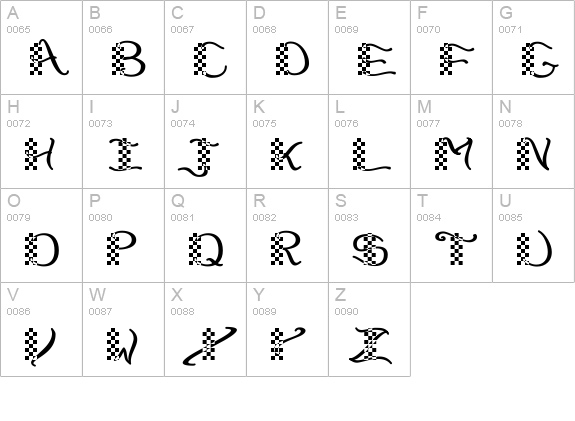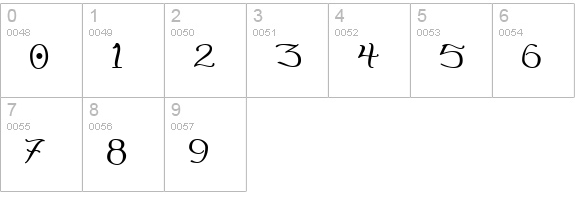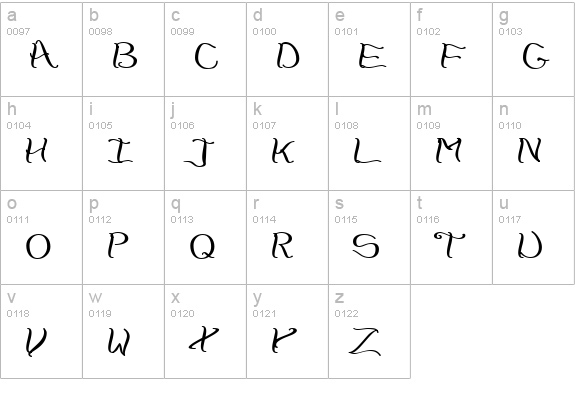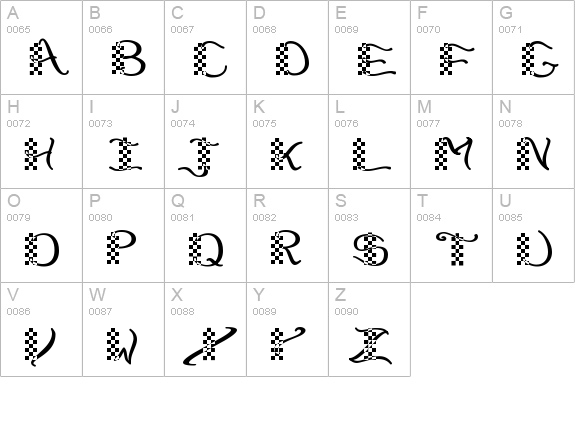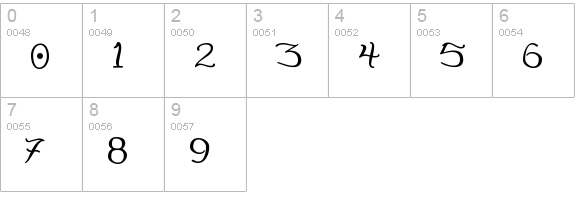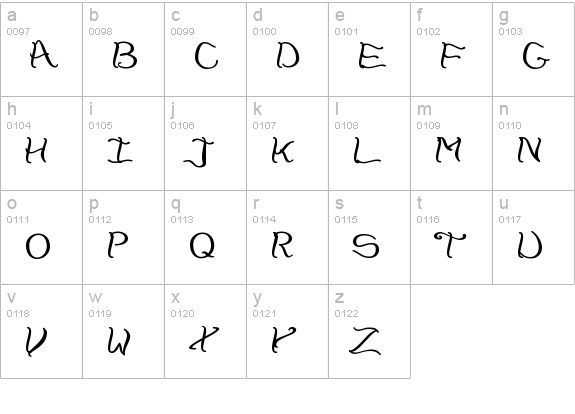
CheckerHat Font Details
CheckerHat font is a unique and eye-catching typeface that brings a playful and modern touch to any project. With its bold checkerboard pattern and clean lines, this font is perfect for posters, invitations, branding, and more. Whether you're looking to make a statement or add a fun twist to your designs, CheckerHat font is sure to stand out. The best part? CheckerHat font is completely free to download at FontsMarket.com. Simply visit the website and start using this dynamic font in your projects today. Don't miss out on the opportunity to incorporate this striking typeface into your designs for a fresh and stylish look.